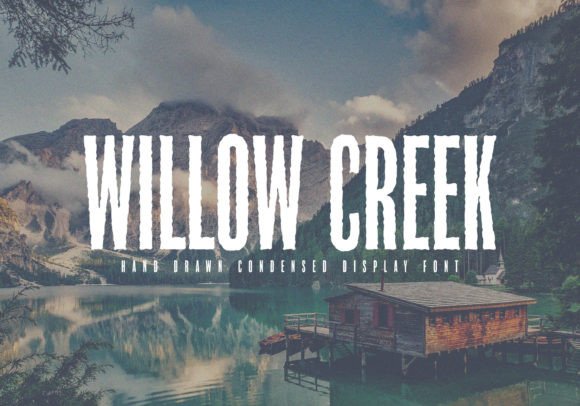
Behold, Willow Creek Font, the ultimate display font that ignites your creative spirit and transports you to the heart of nature's wild embrace. Immerse yourself in the captivating beauty of this condensed masterpiece, meticulously crafted to evoke the essence of adventure, freedom, and boundless exploration.
Willow Creek Font is a visual symphony, a harmonious blend of retro charm and modern elegance. Its rugged character and captivating style add an iconic touch to your artwork, whether you're designing logos, posters, or embarking on graphic design projects that demand a touch of the wild.
With Willow Creek Font, your headlines and titles take on a life of their own, commanding attention and captivating audiences. Its bold presence and unique letterforms create a visual feast that leaves a lasting impression, making your designs unforgettable.
Imagine the possibilities as you unleash your creativity with Willow Creek Font. Create designs that capture the spirit of the wild, evoke the nostalgia of camping trips under the starlit sky, or transport your audience to the heart of nature's untamed beauty. From rustic designs to modern masterpieces, Willow Creek Font seamlessly adapts, adding a touch of rugged charm to every project.